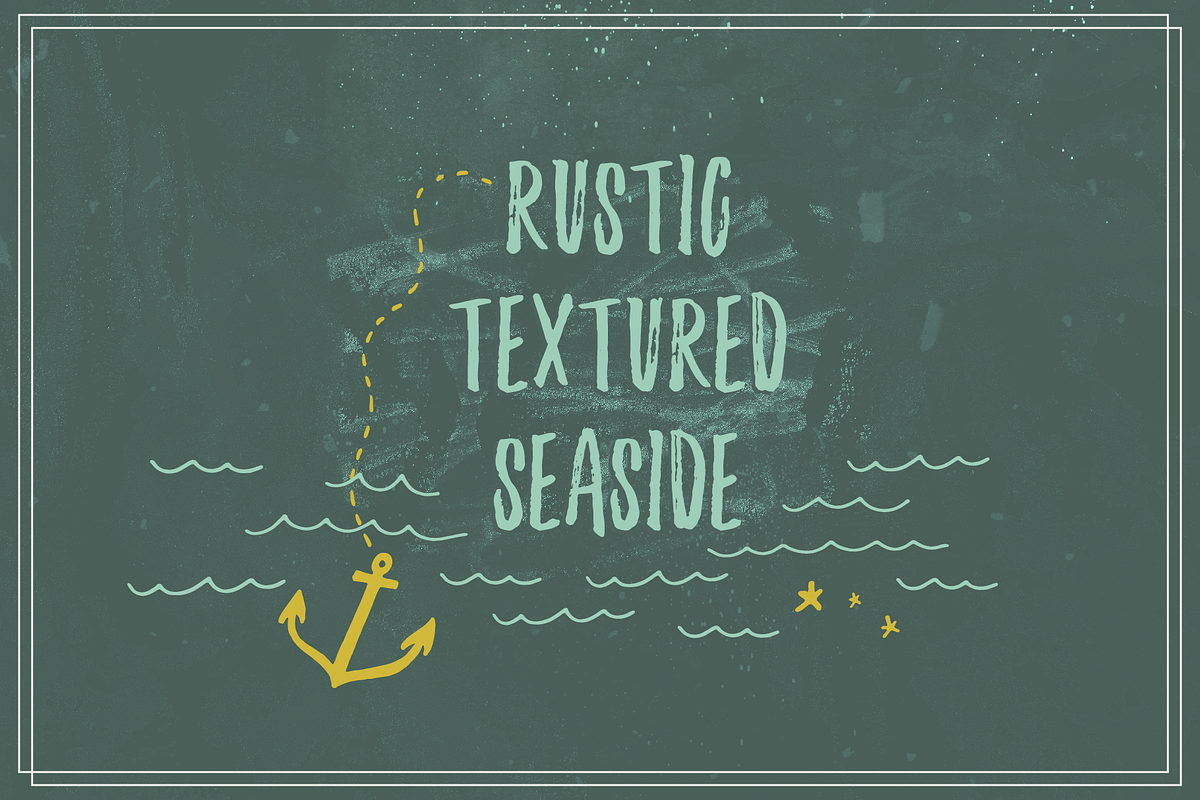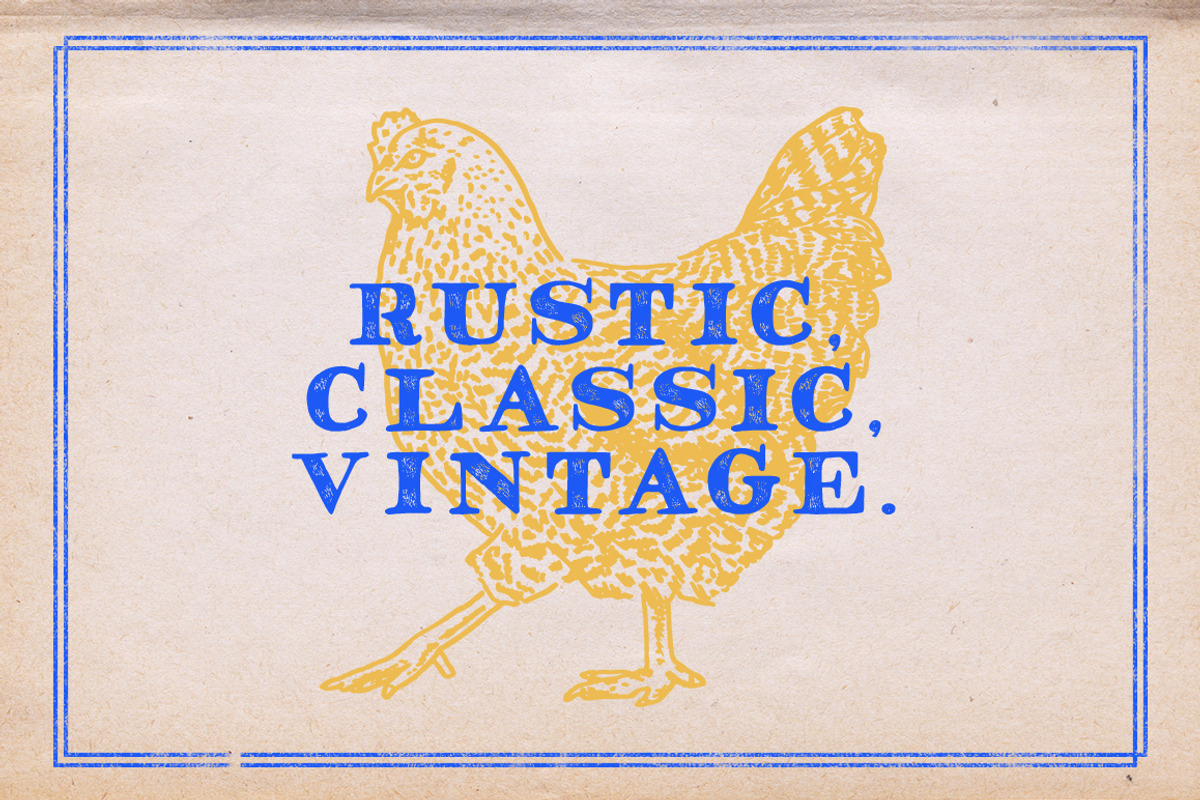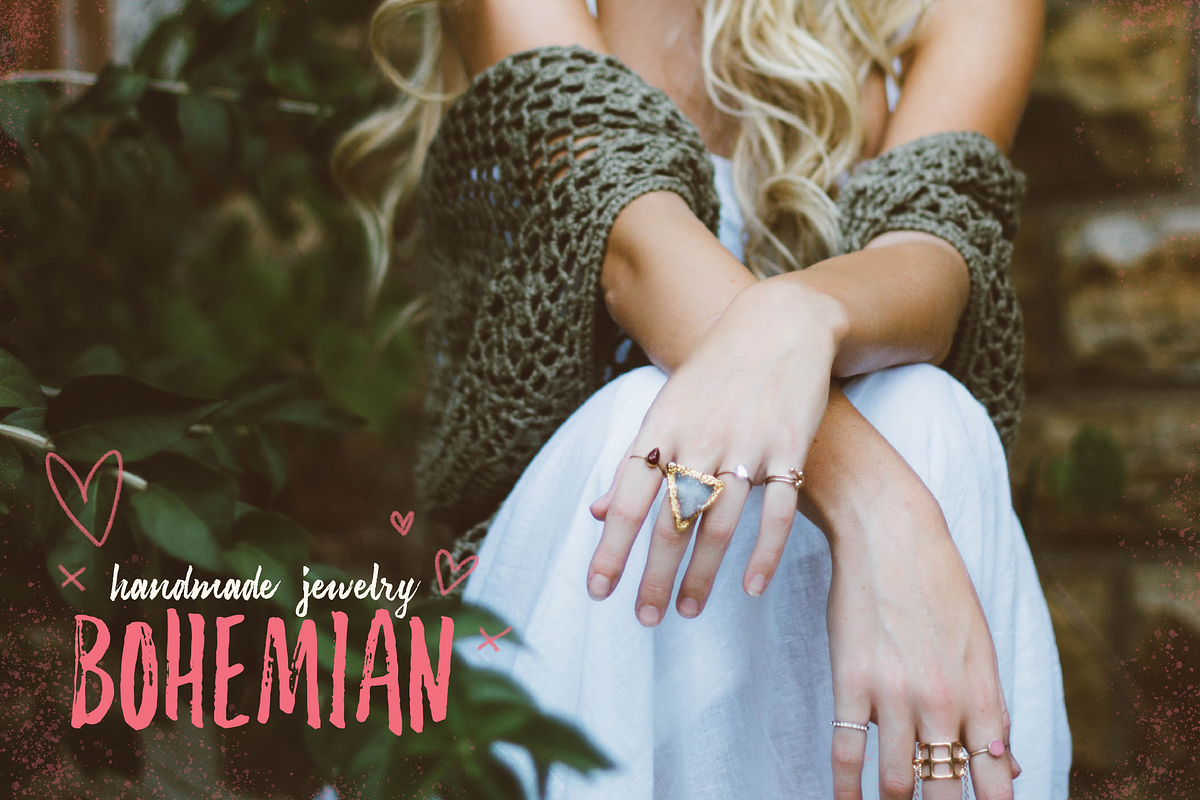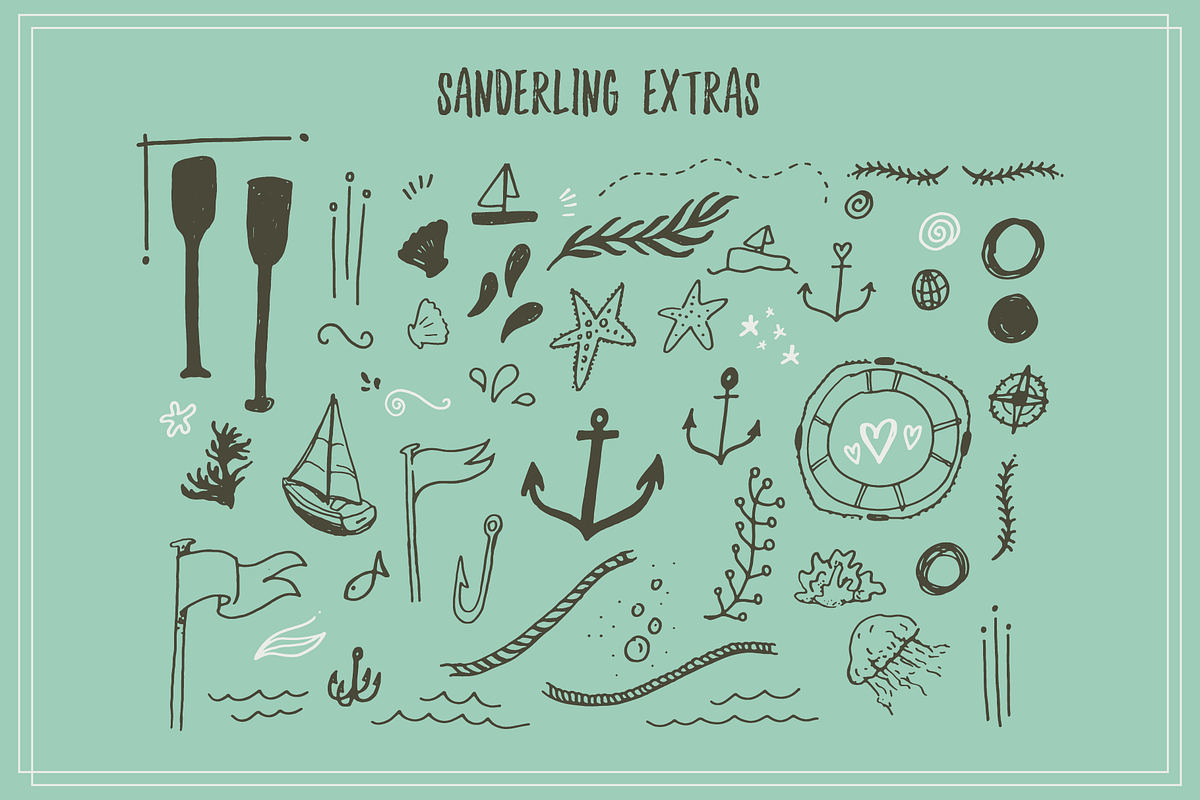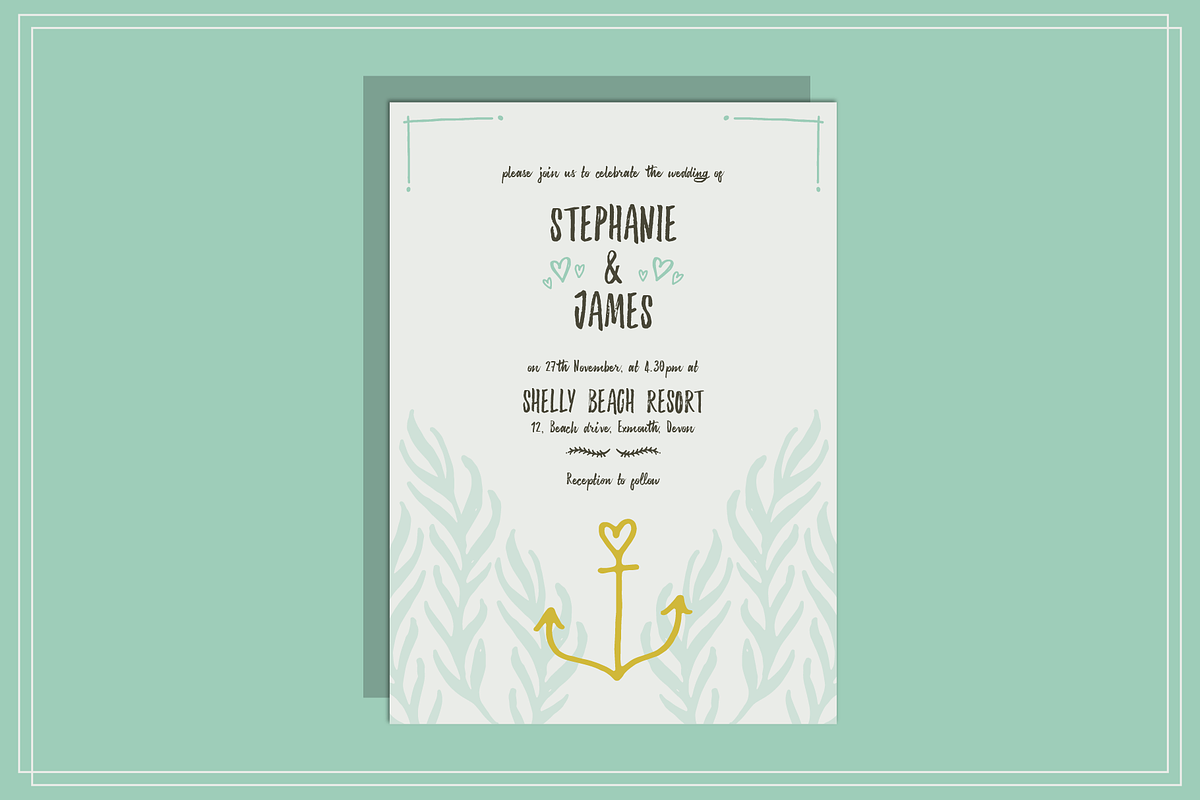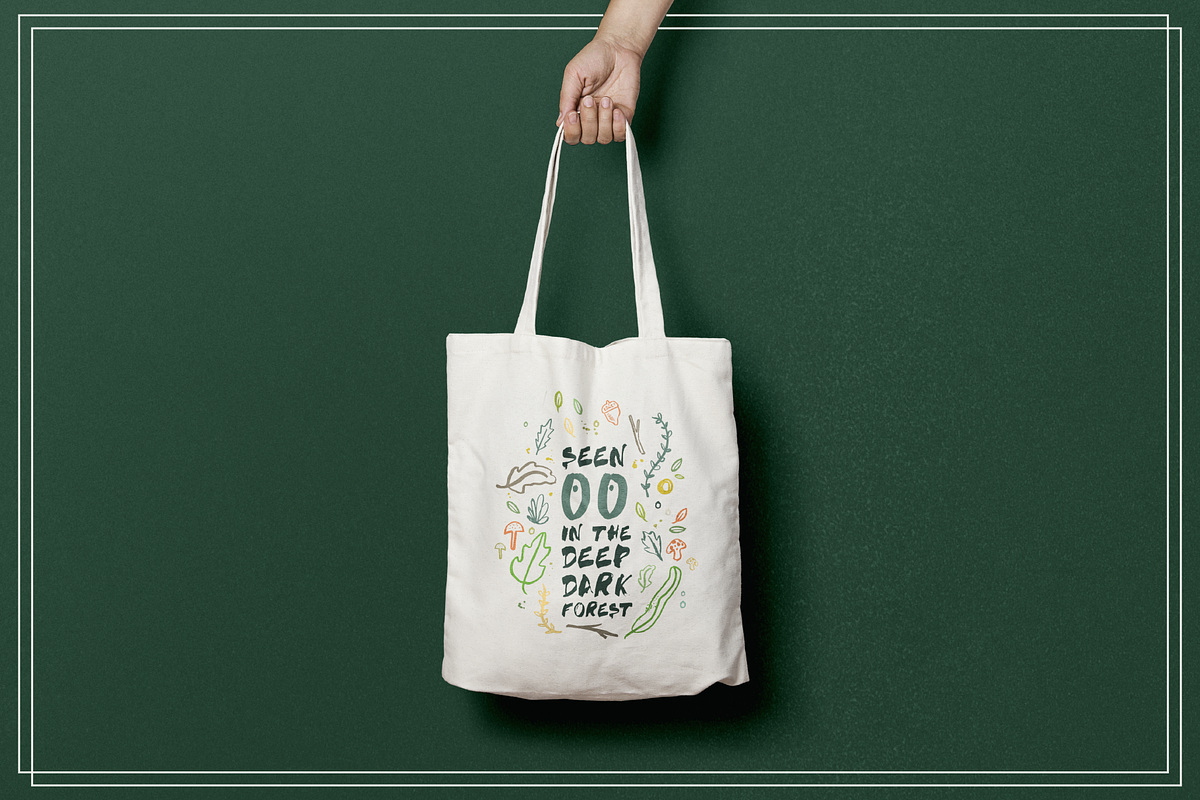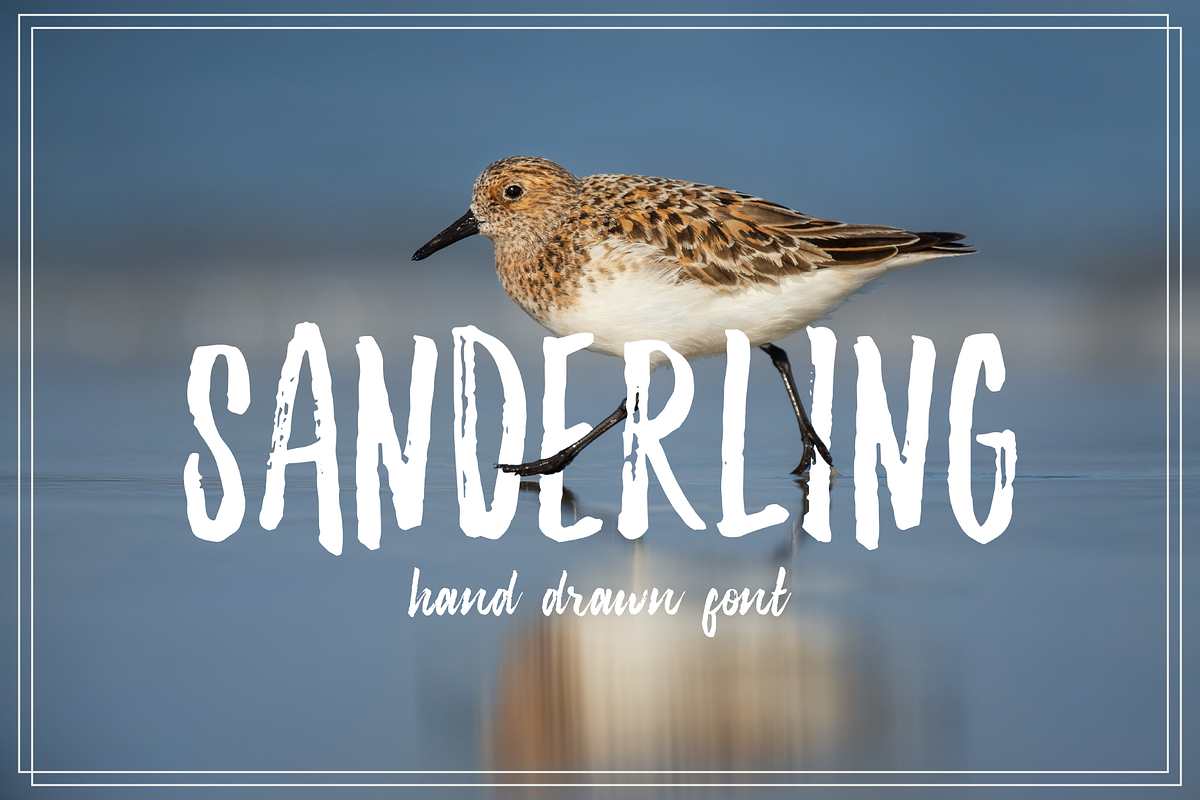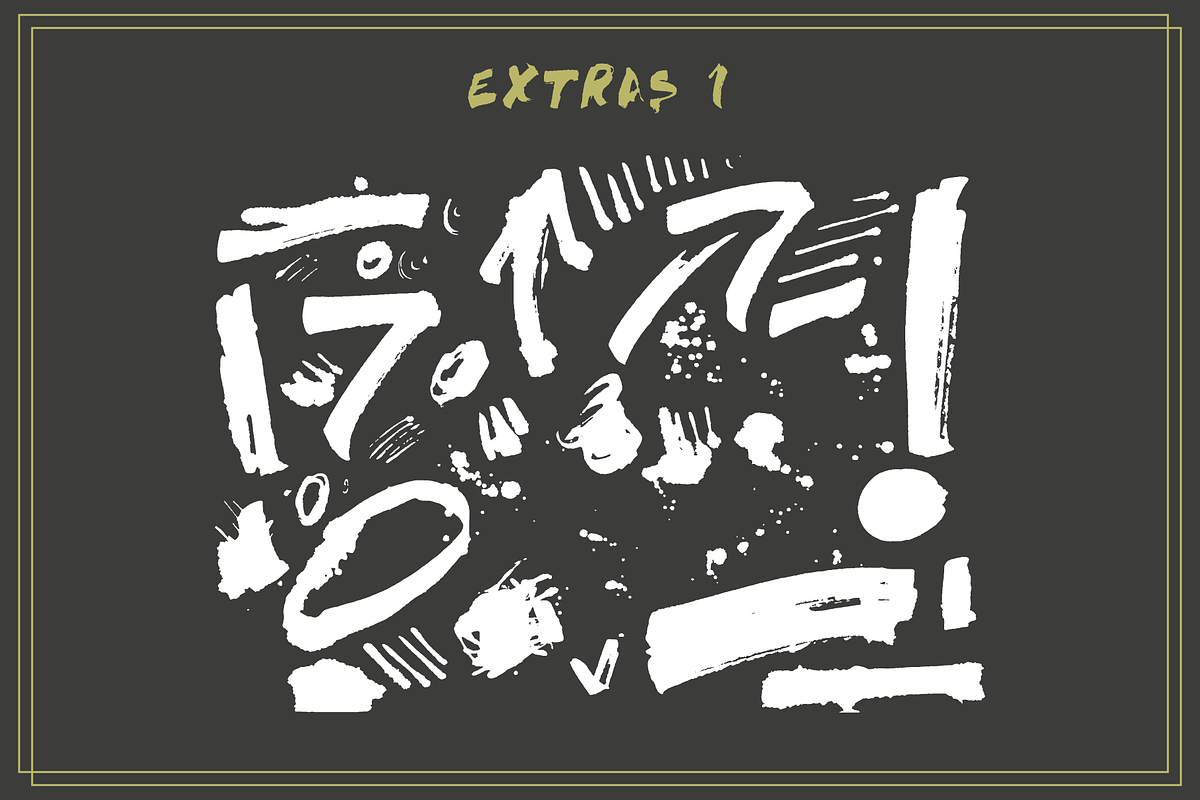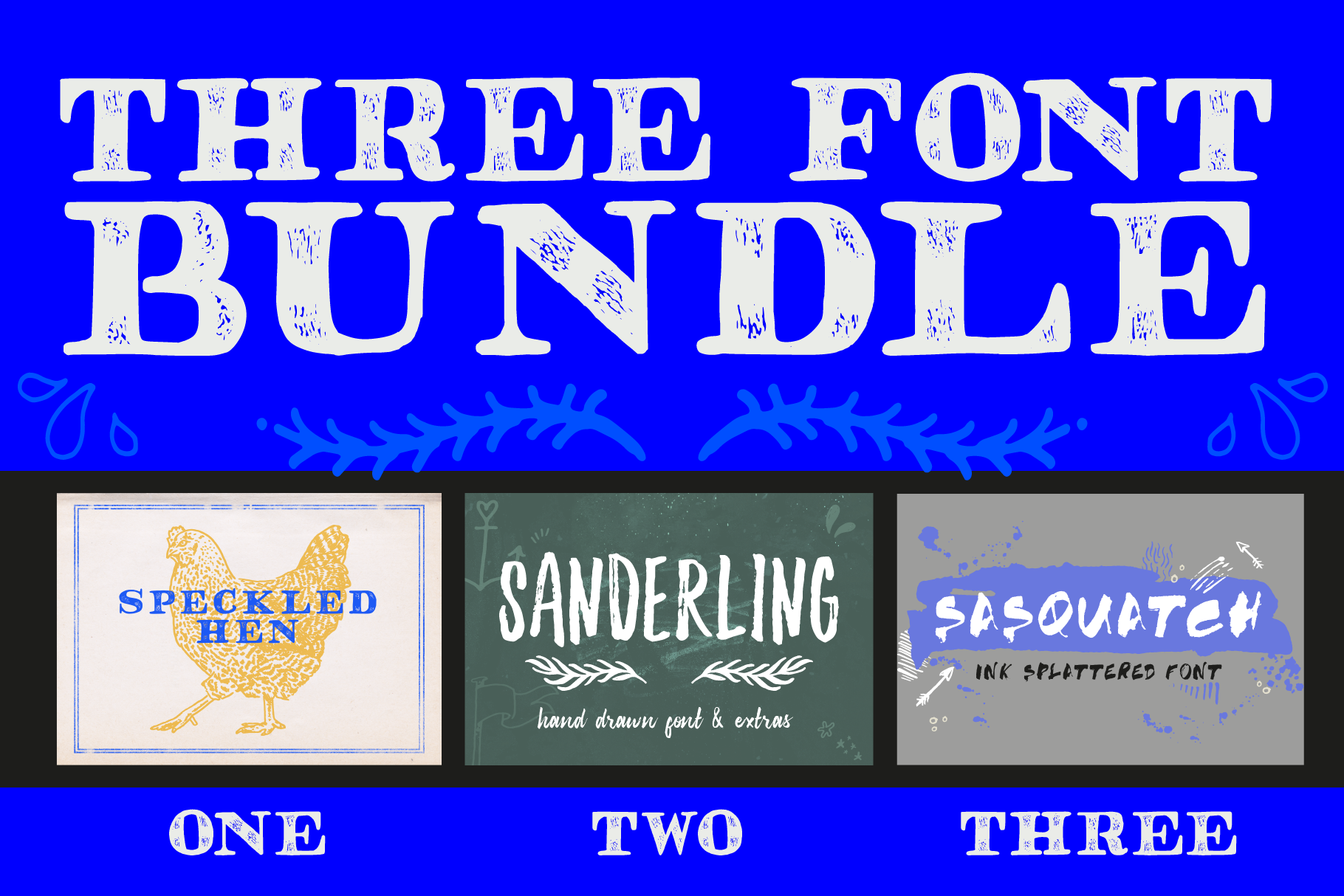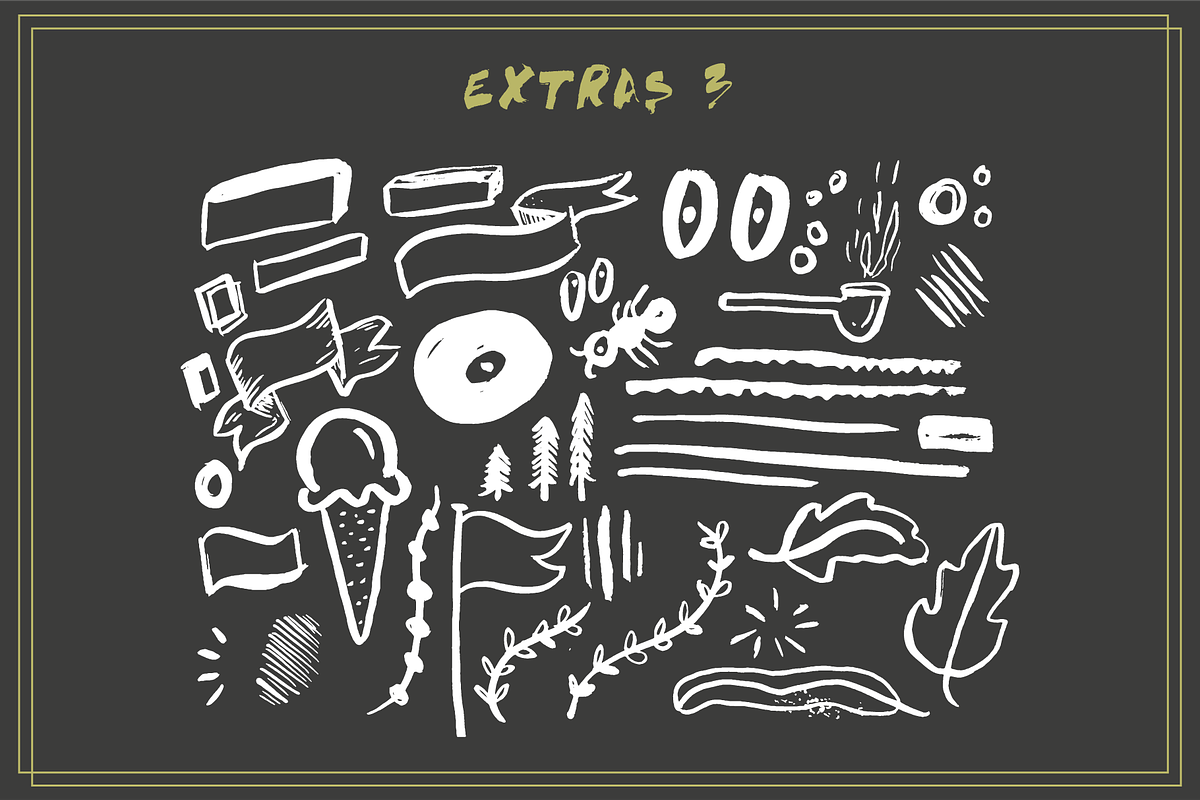
THREE FONT BUNDLE & extras
Lettering Supply Co, is bringing you a versatile bundle of 3 hand made fonts!
FONT 1: SPECKLED HEN // Handmade, textured font
Speckled Hen is a handmade font. It works well when used in rustic & vintage work. Can be used for both commercial & personal projects. .otf included in the download. Ai. & eps. vector of Speckled Hen illustration included. This is a caps only font
FONT 2: SANDERLING // Handmade, textured font & illustration pallet
This authentic hand sketched font includes:
A Script style font with ligatures and alternates, in a unique textured rustic style.
Over 50 hand drawn illustrations, to accompany this amazing font!
Hand drawn Sanderling bird illustration.
FONT 3: SASQUATCH // Hand splattered, textured font & illustration pallet
This authentic hand inked font includes:
A Bold, Inked font with a unique textured rustic style.
Over 75 hand inked illustrations, to accompany this amazing font!